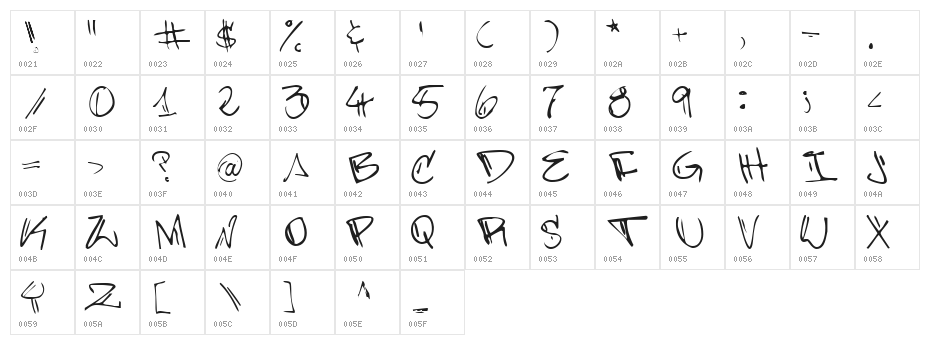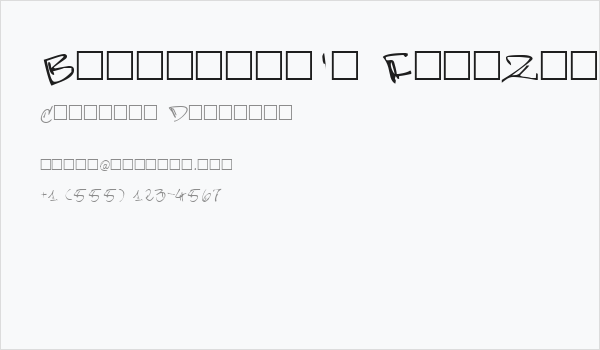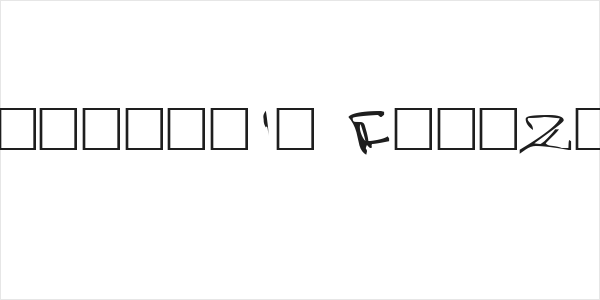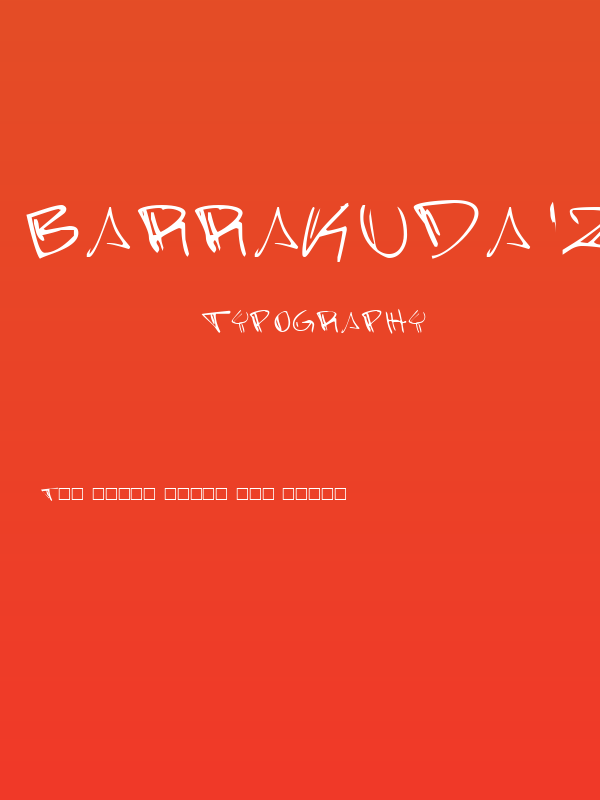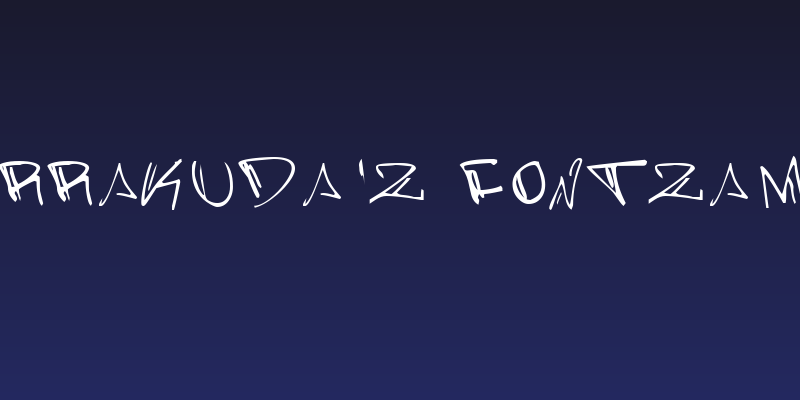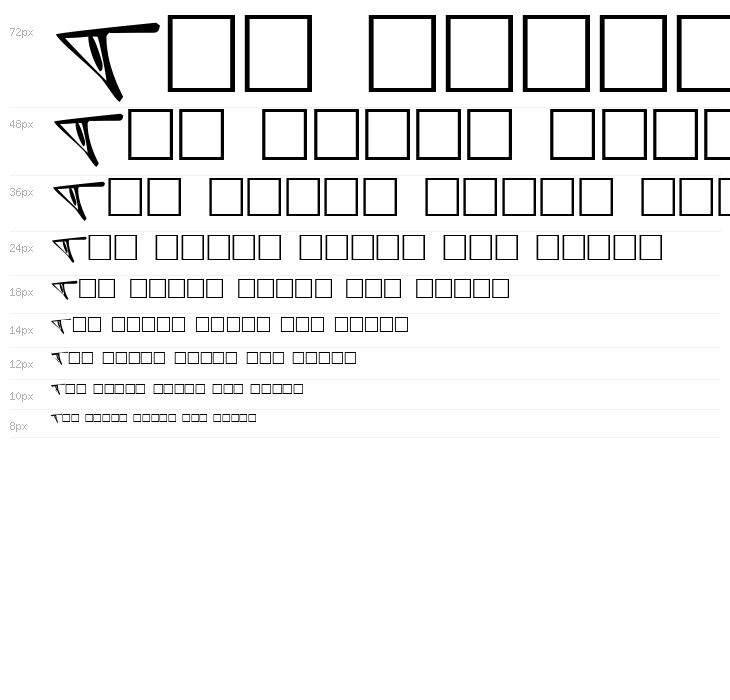
Barrakuda'z FontZamba Font
Barrakuda'z FontZamba Description
This font exhibits a dynamic and energetic style, characterized by its bold and irregular strokes that give it a hand-drawn appearance. The uppercase letters are particularly expressive, with varying angles and exaggerated curves that create a sense of movement and spontaneity. The lowercase letters maintain this lively aesthetic, though they are slightly more restrained, providing a balance to the overall design. The numbers and special characters continue the theme with playful and unconventional forms, making them stand out. This font's unique style makes it suitable for projects that require a touch of creativity and flair.